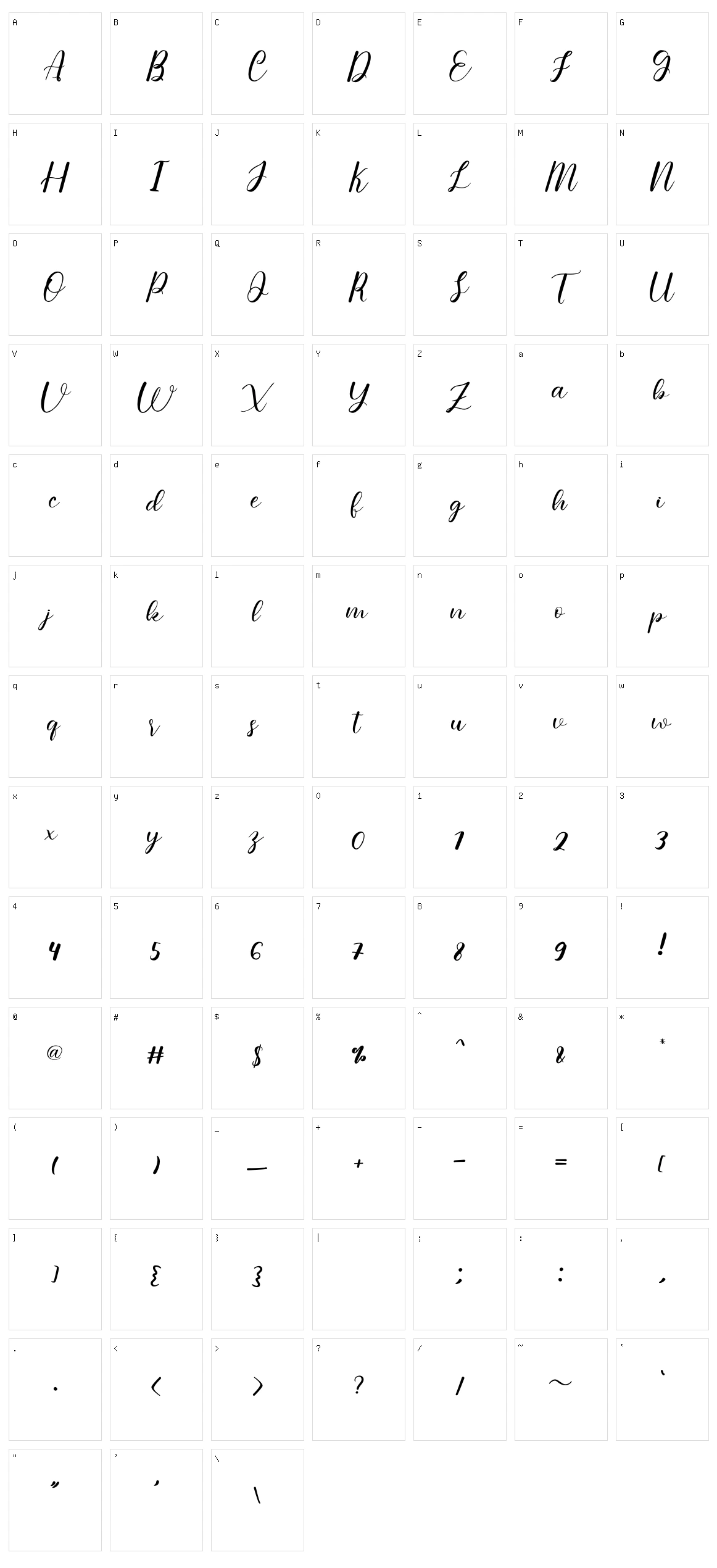
The free font Hello Sweetheart is carefully designed by Letterstype, showcasing a thoughtful balance of creativity and usability and falls under the Script font style. When you download the ZIP file, it contains only 43.98 KB of font files, making it lightweight and quick to download. Please review the license details below to understand permitted usage and distribution rights. If license information is not available, we recommend using this font for personal projects only or contacting the author directly for commercial usage permissions.